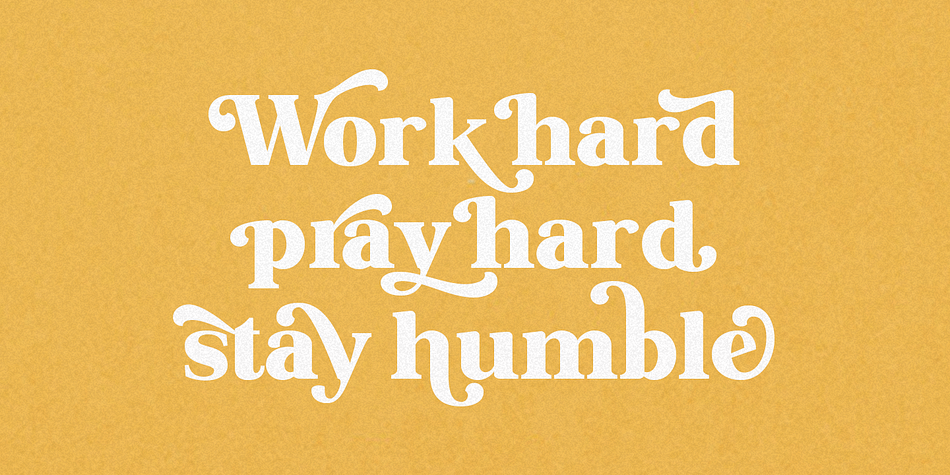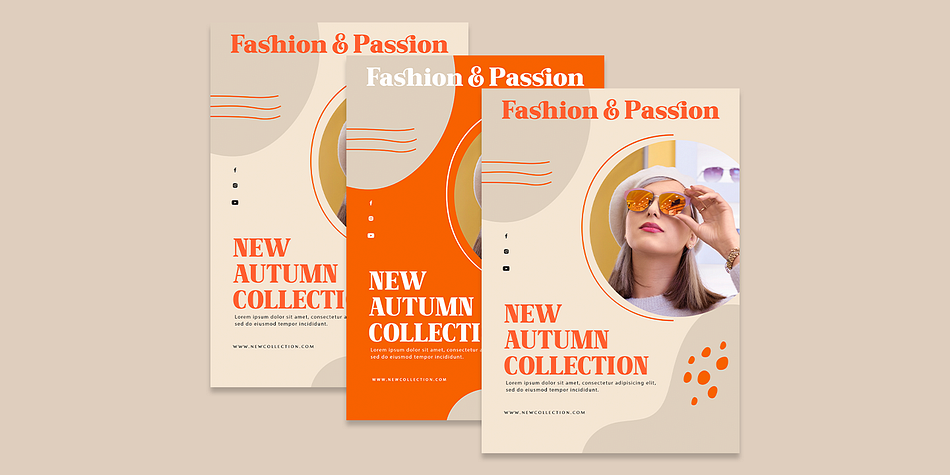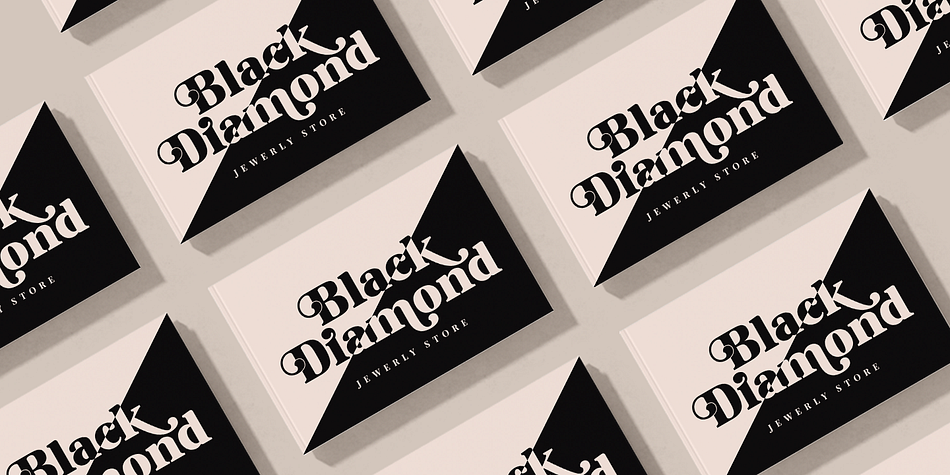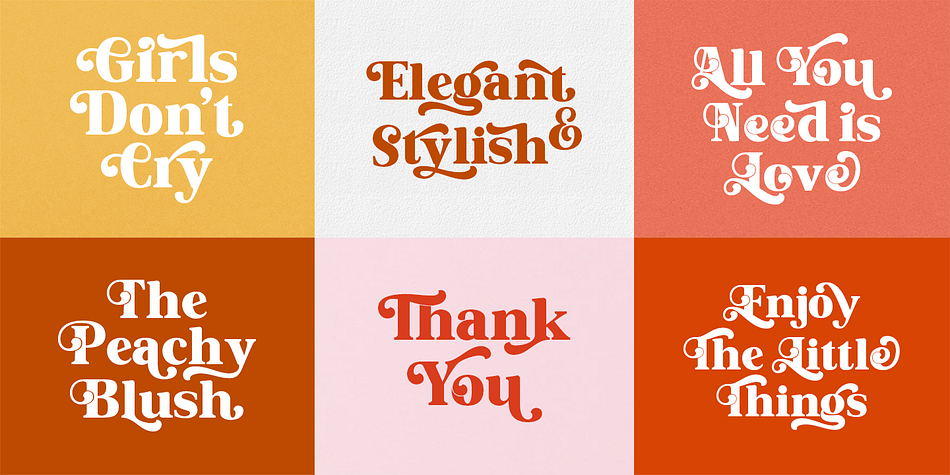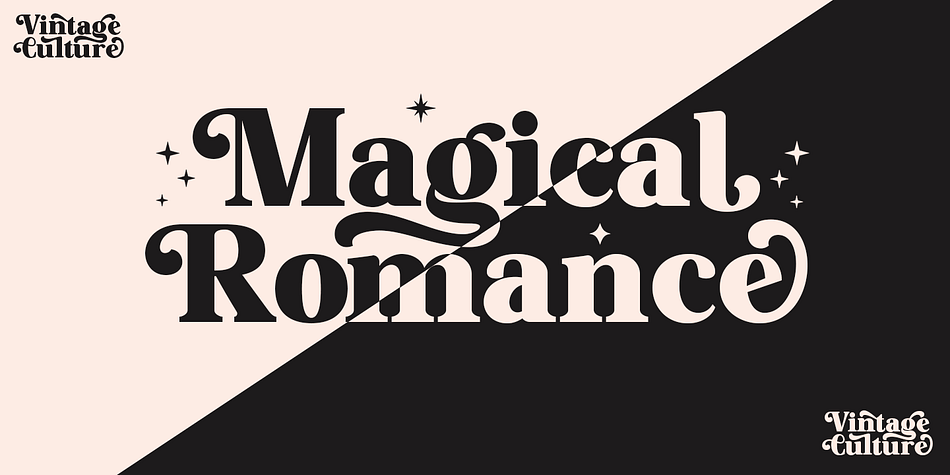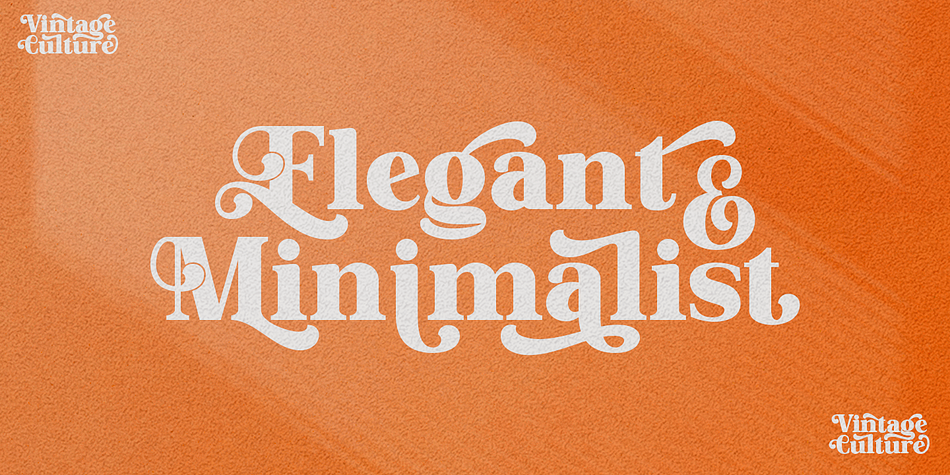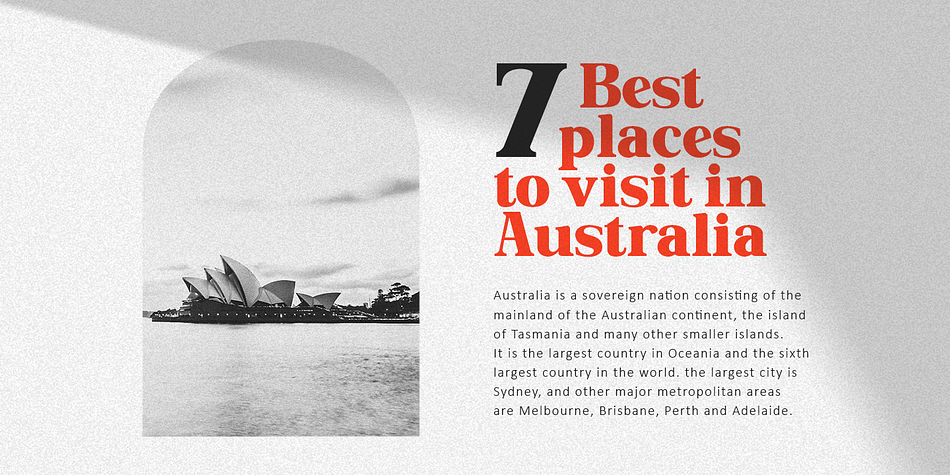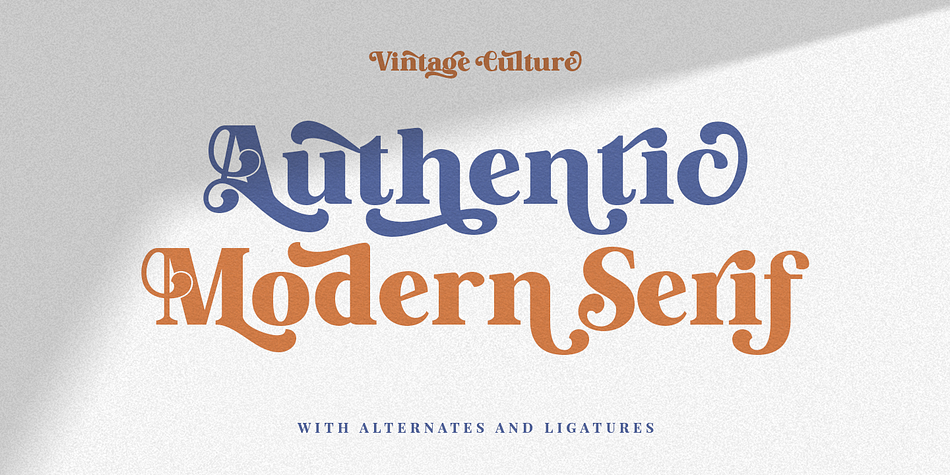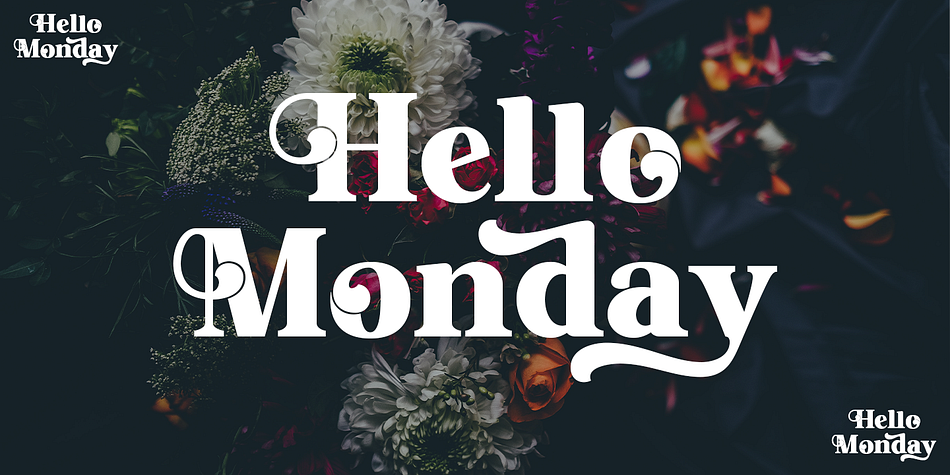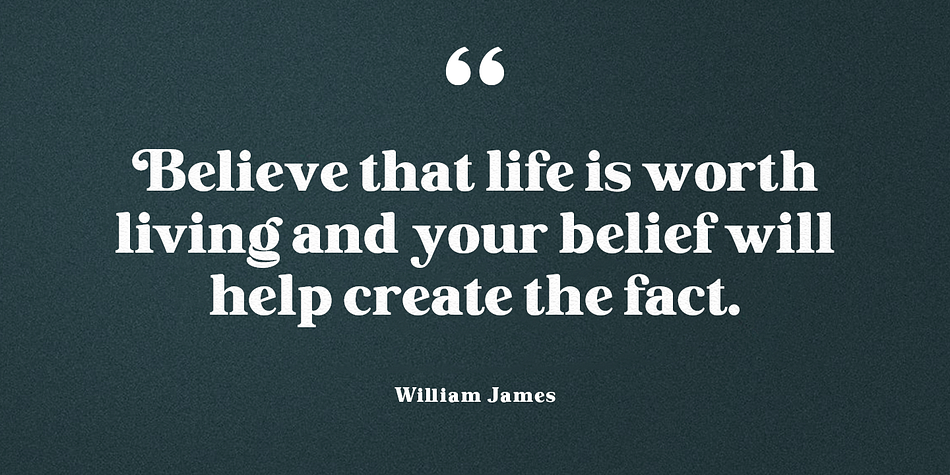
Vintage Culture
Vintage Culture is a retro font family published by Mega Type.
Introducing Vintage Culture - a modern classic serif with a modern and classy style.
Vintage Culture is a unique, fun, and versatile serif font with 192 alternatives and 42 ligatures to spice up any design you love. Vintage Culture is built with OpenType features and includes ligatures, alternatives, numbers, punctuation, and also supports other languages.
Vintage Culture is a versatile serif font that works in both large and small sizes. This font is suitable for a wide variety of projects such as: headlines, logos, labels, branding projects, magazines, homeware designs, product packaging, mugs, quotes, posters, and more.